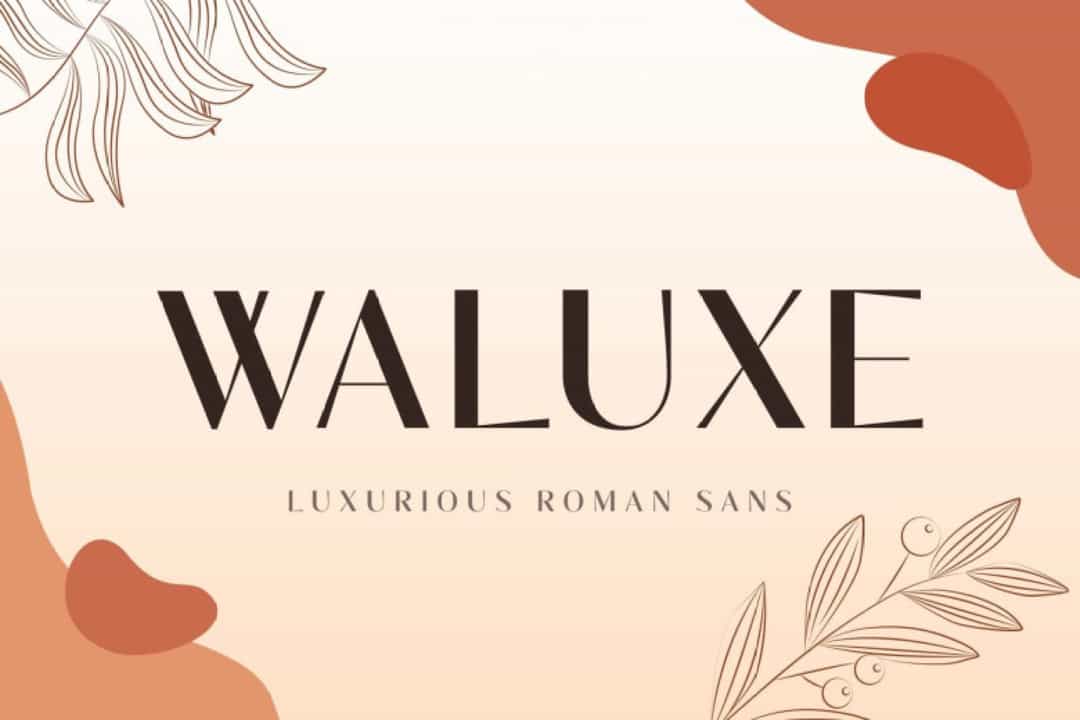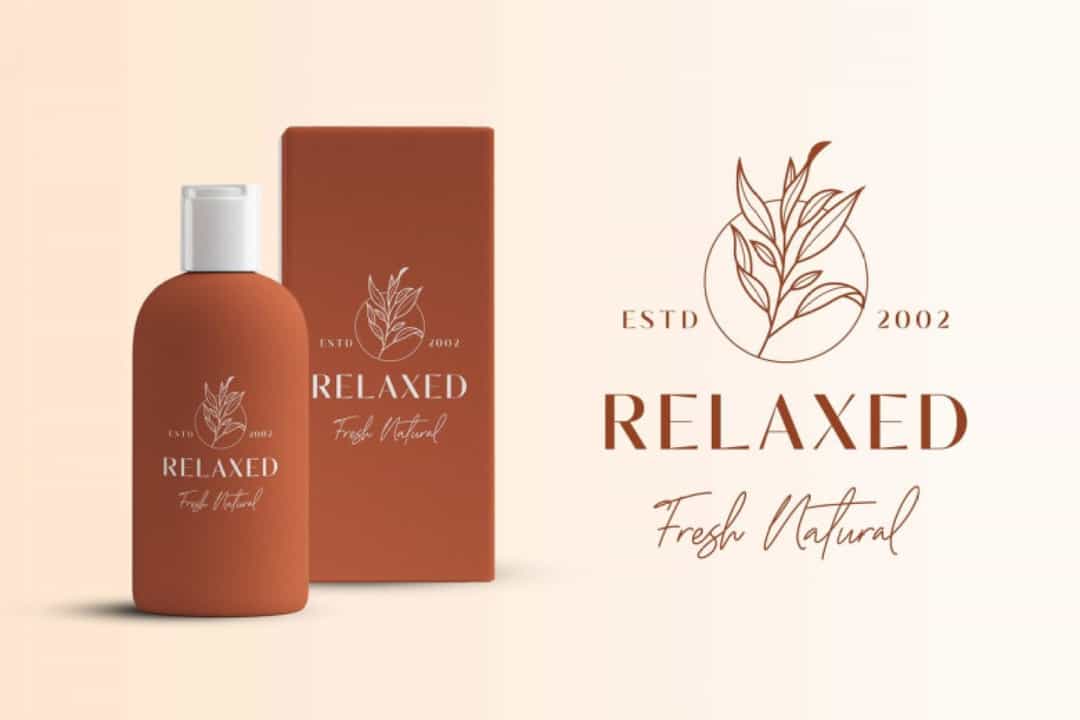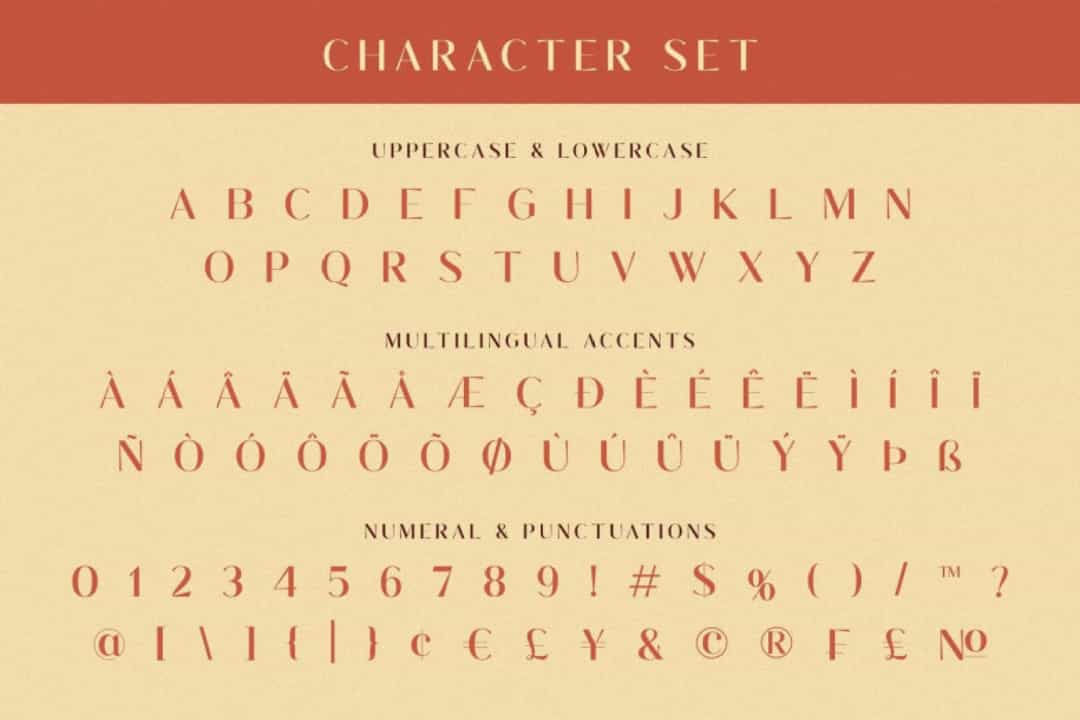
Waluxe font is a luxurious Roman Sans Serif that was inspired by the minimalist logo bearing the same name, perfect for designing brochures, templates videos advertisements branding logos etc.